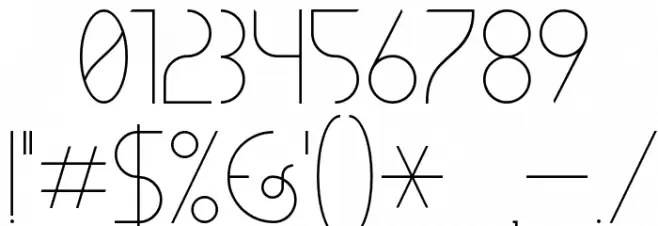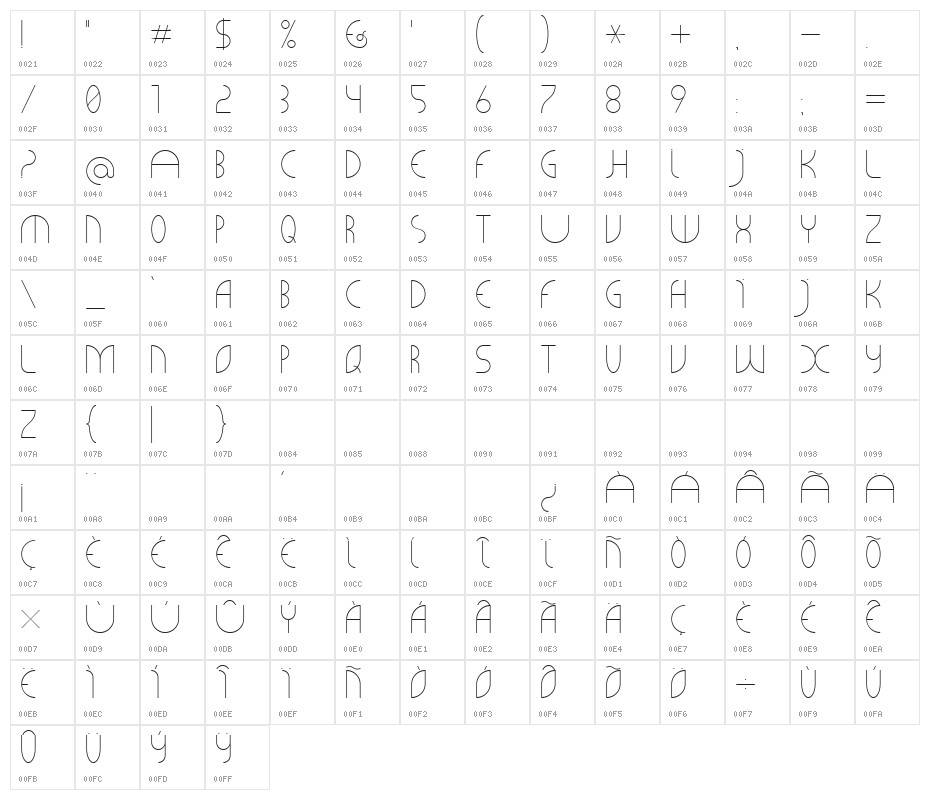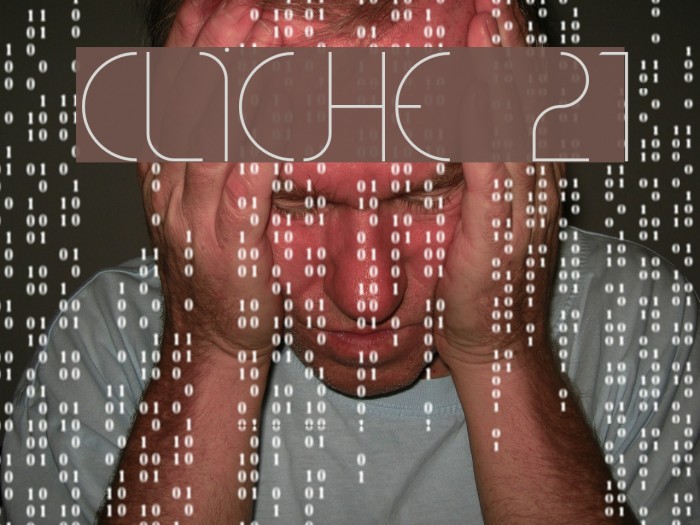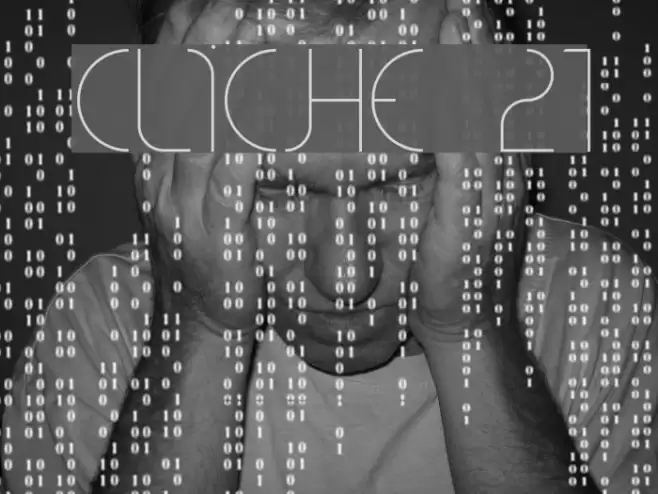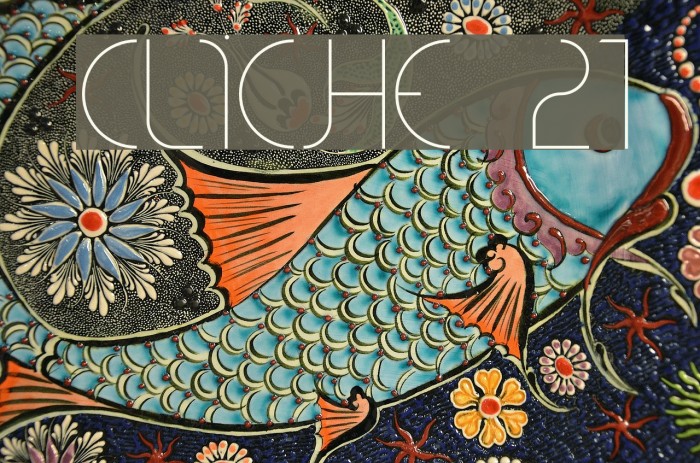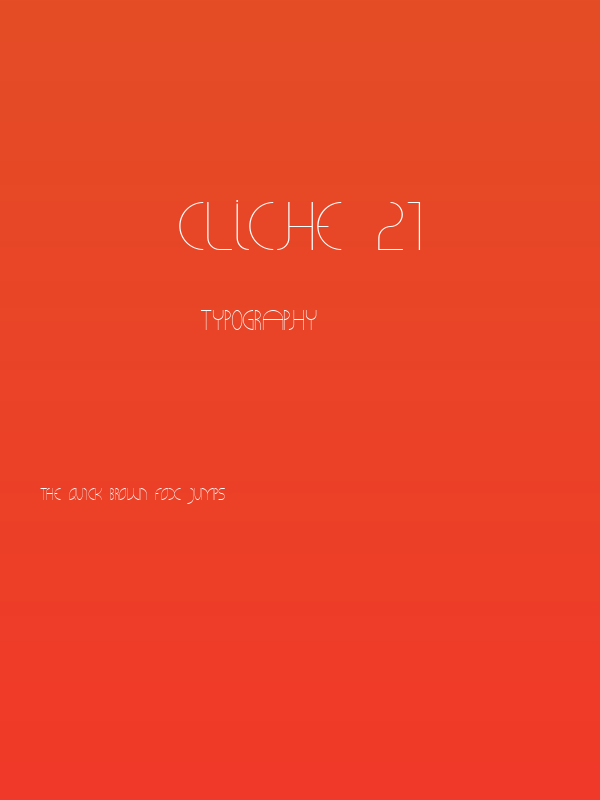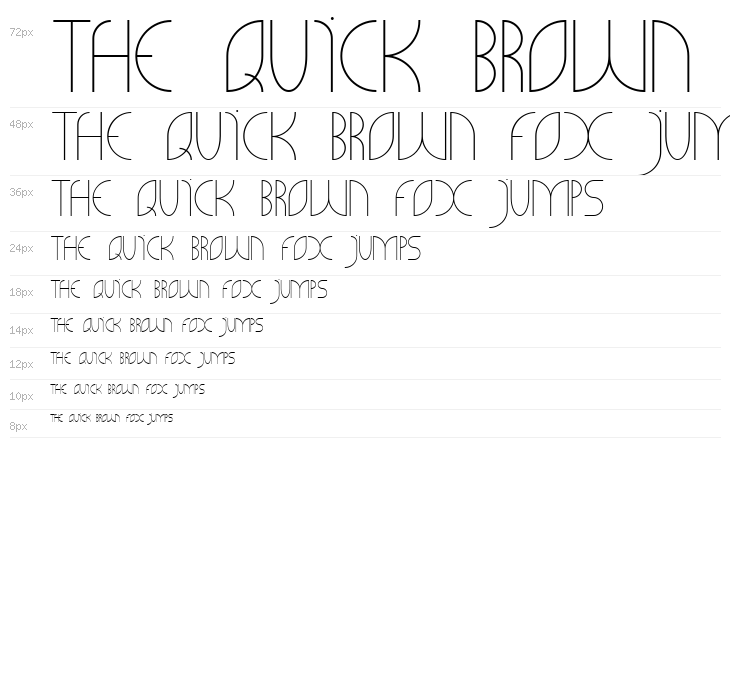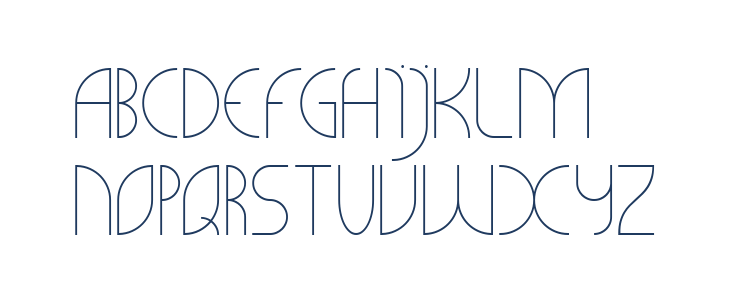
CLiCHE 21 Font
CLiCHE 21 Description
This font features a sleek, modern design with thin, elongated strokes and a geometric structure. The characters are composed of clean lines and curves, creating a minimalist and futuristic appearance. The uppercase and lowercase letters maintain a consistent style, with a focus on symmetry and balance. The numerals and special characters are designed to complement the alphabet, maintaining the same thin and elegant aesthetic. This font is ideal for projects that require a contemporary and sophisticated look.
| Proposed Projects | Ideal for branding, editorial design, fashion magazines, and modern web design. |